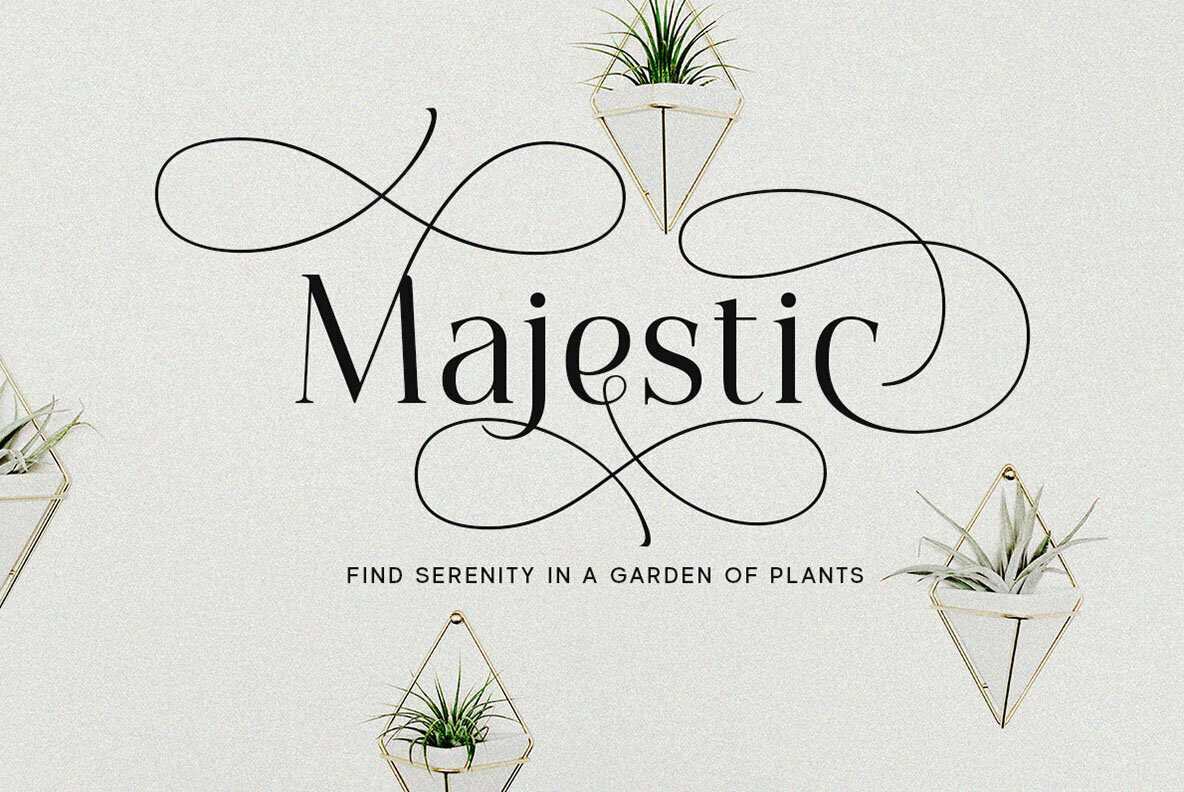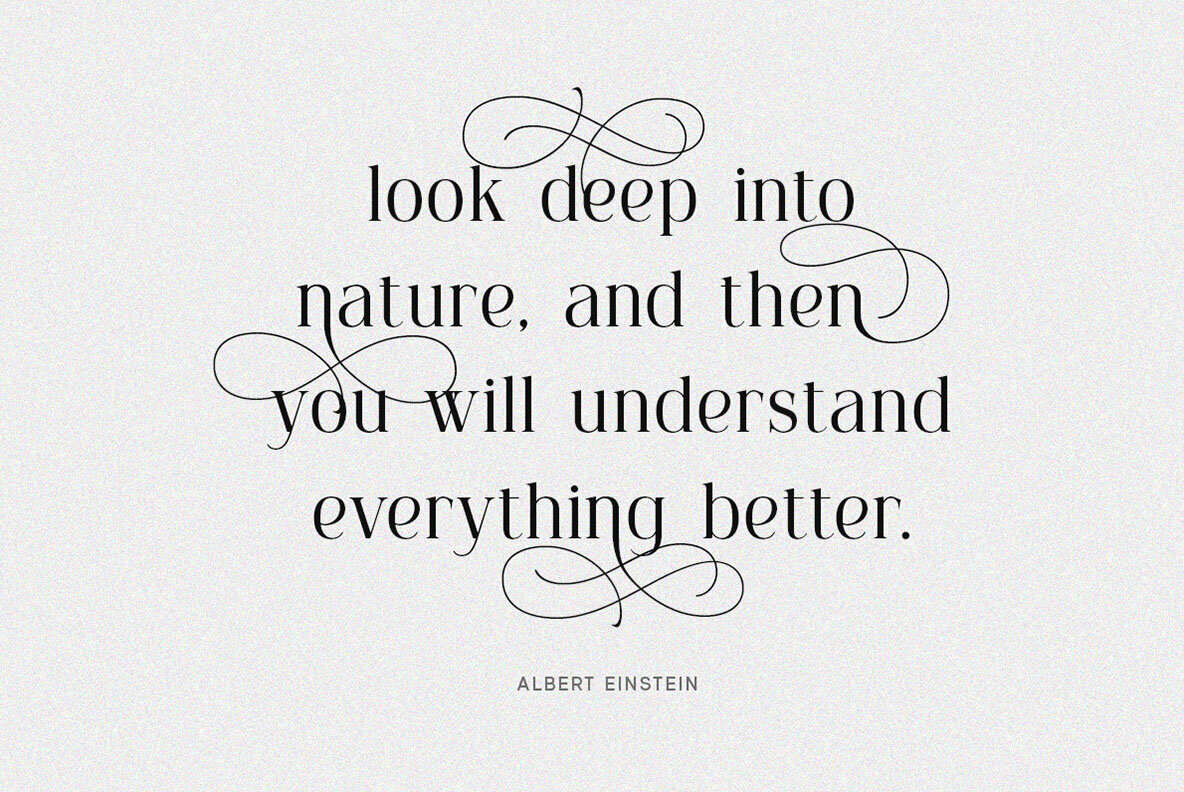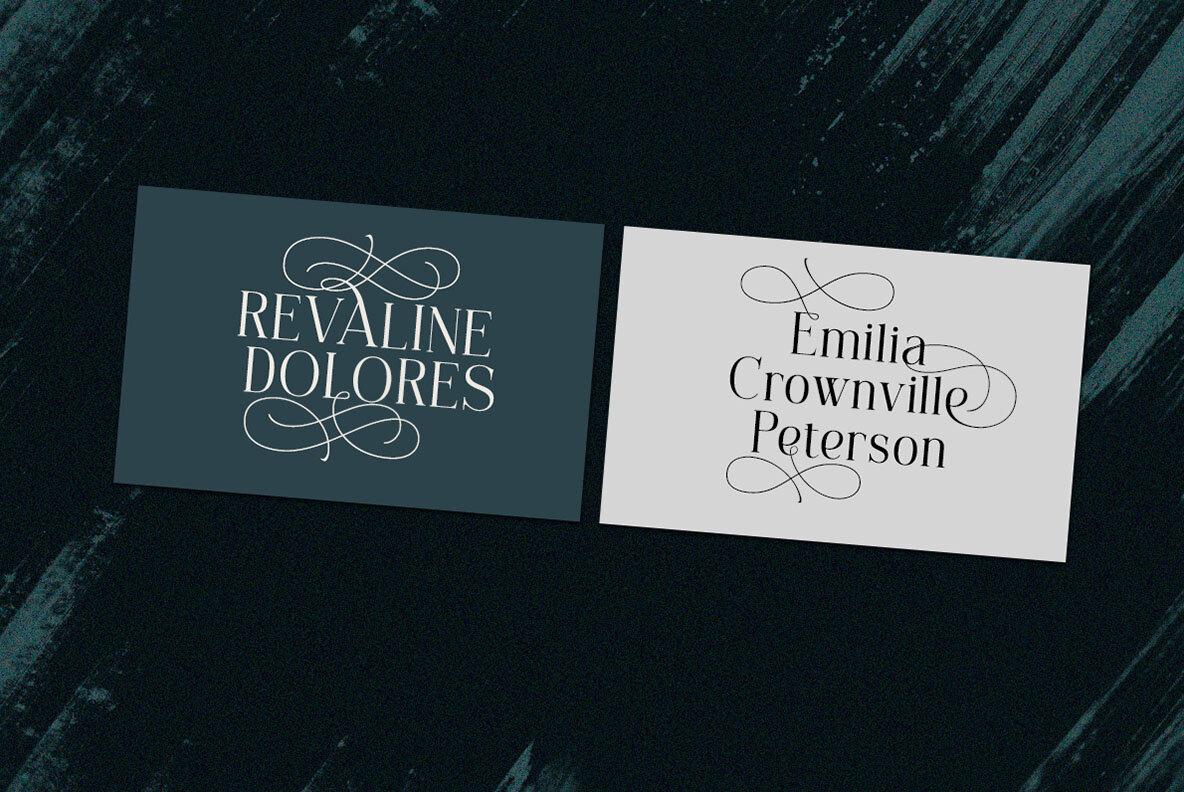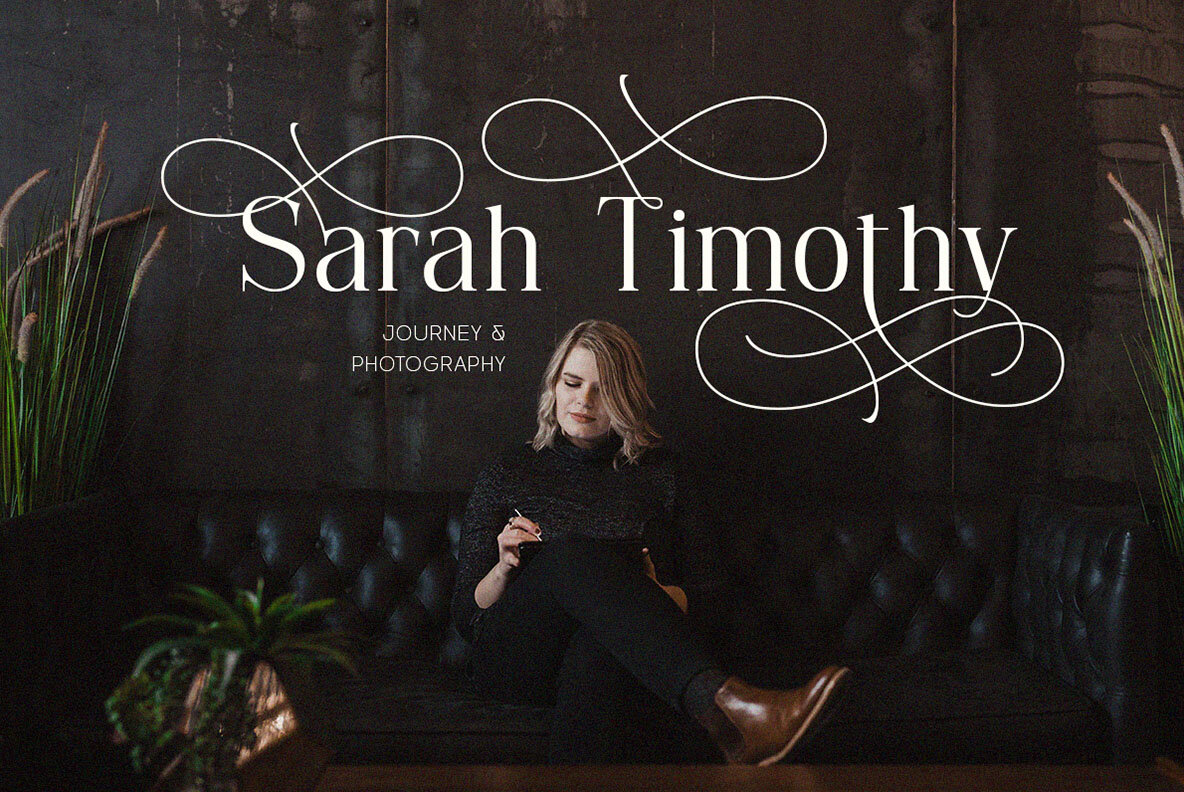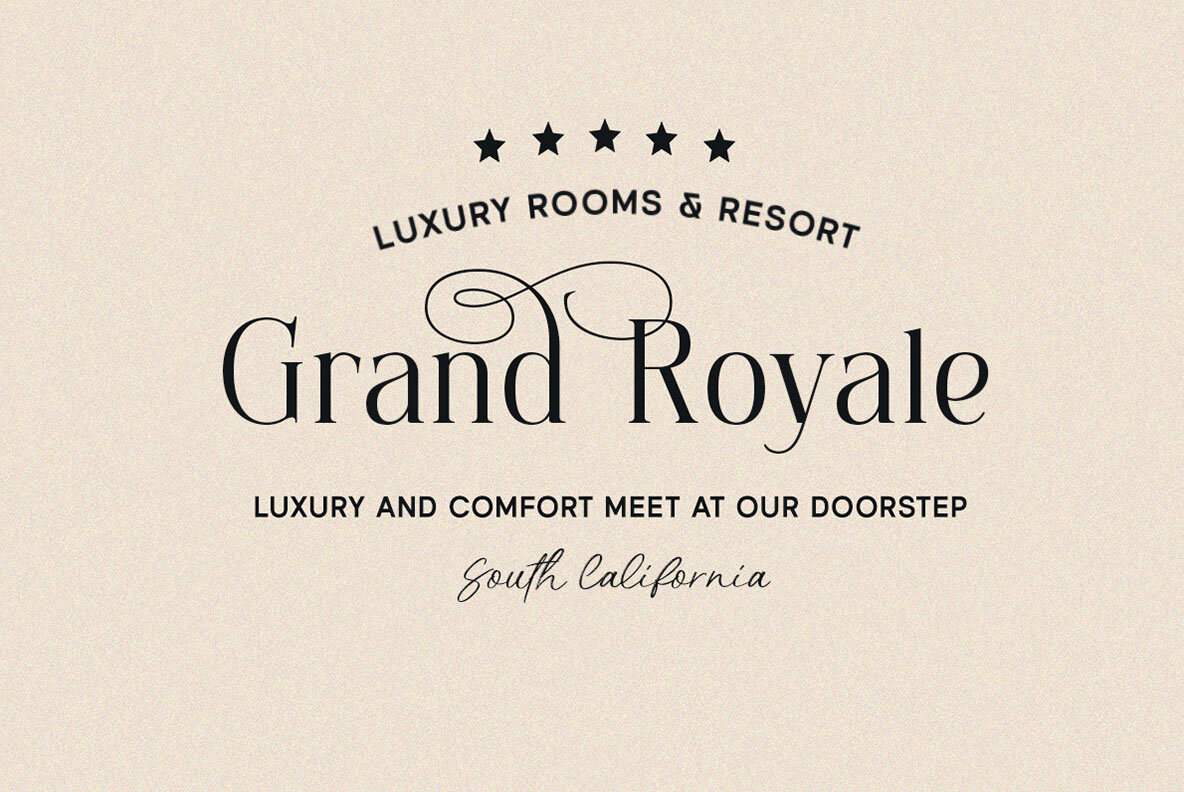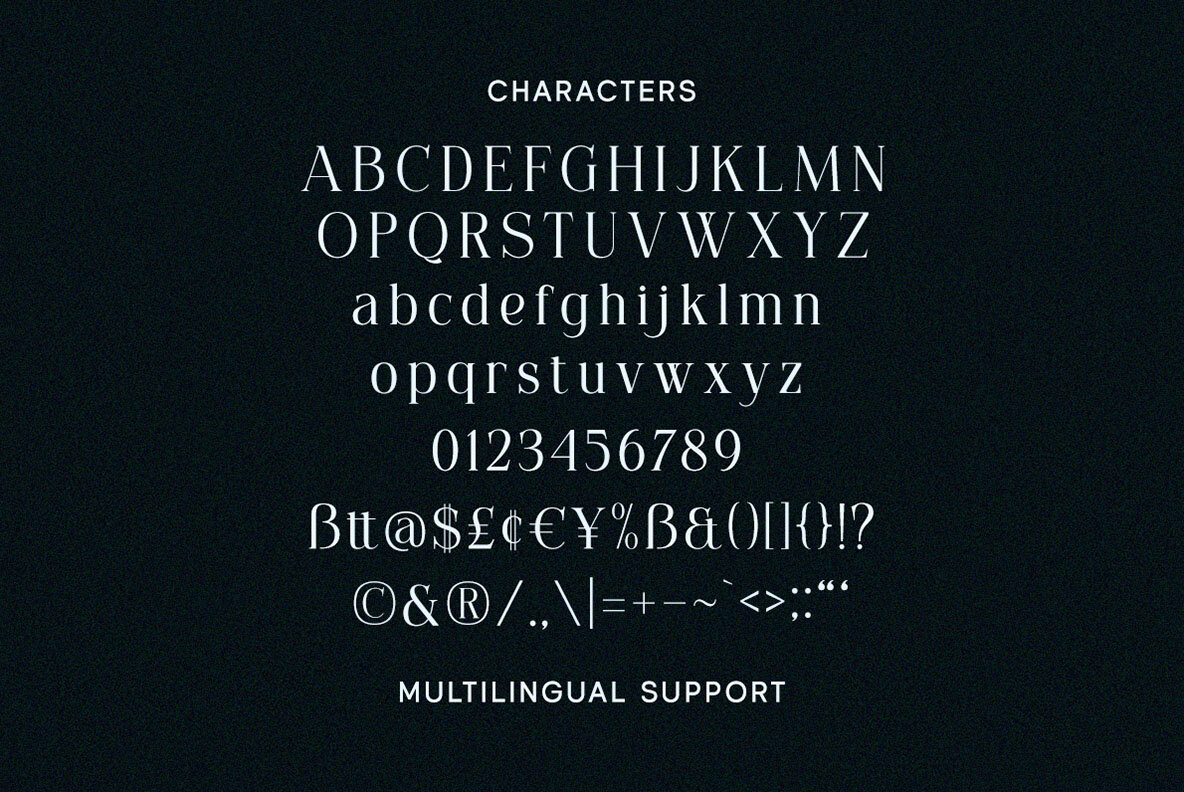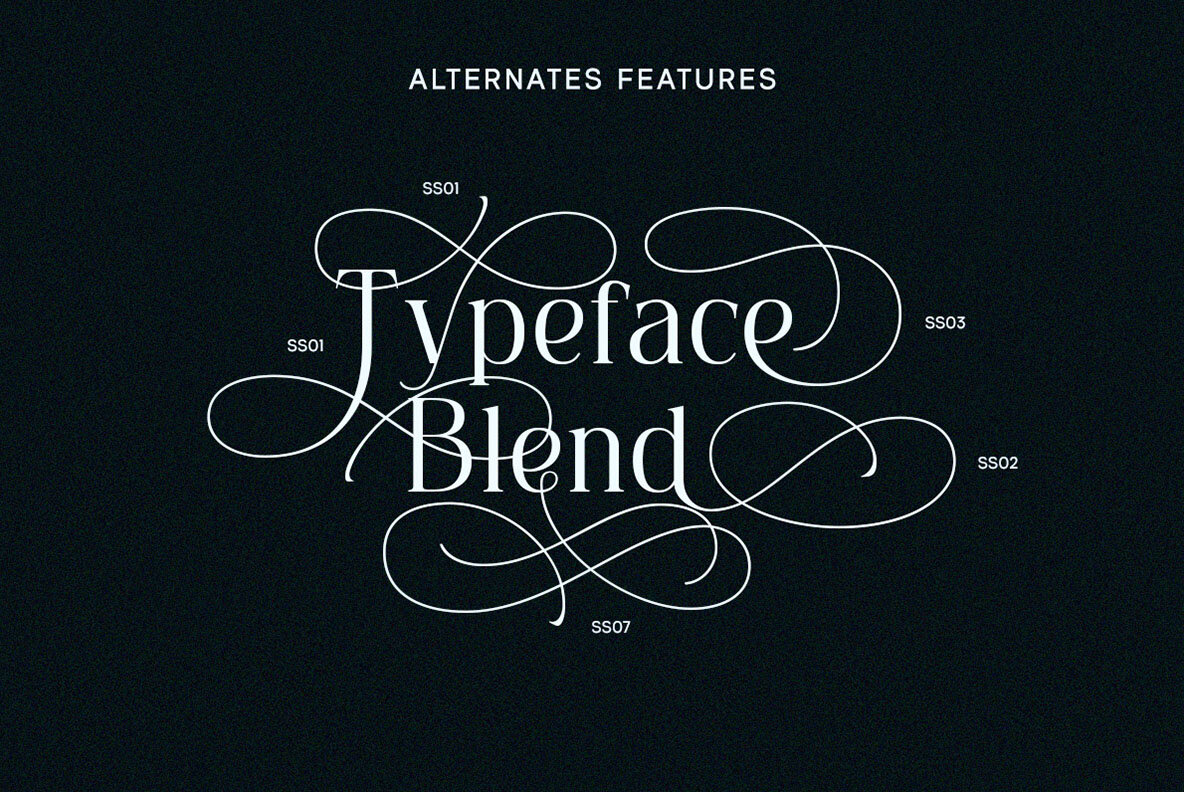
Blissful Beauty Font
Blissful Beauty Regular
Blissful Beauty is a serif font that radiates elegance and sophistication. Its stylish alternates and delicate swashes make it the perfect choice for creating designs that demand a refined and chic look. From high-end branding to elegant wedding invitations, this font will captivate with its luxurious appeal.